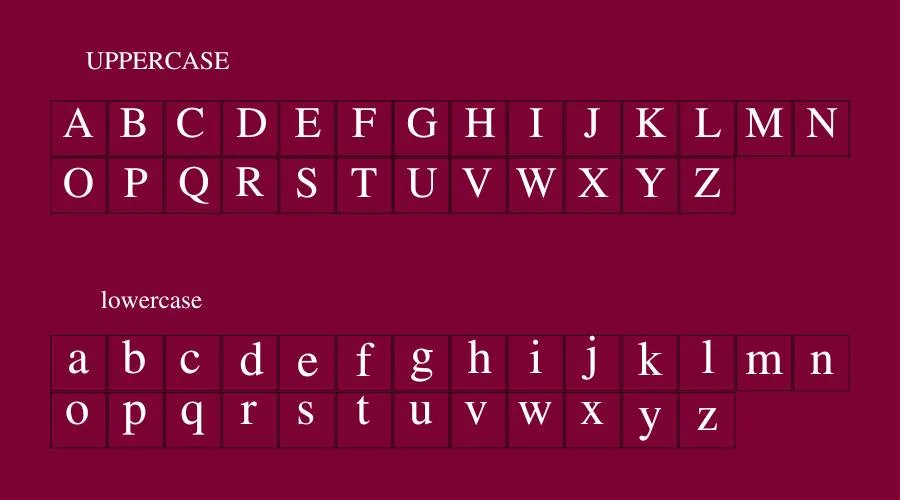
Times LT Std Roman Font
About Times LT Std Roman Font
Linotype created Times LT Std Roman Font is serif text style. Additionally, you may use its online generating tool to turn plain text into a contemporary design. You may obtain it in the OT and TT archive data types depending on your computer.
For viewers, the typeface has an appealing and tidy textural aspect. This typeface may therefore be utilized in a variety of layouts and tasks.
The typeface can suit your demands if you want anything classy and discreet or dramatic and eye-catching. Now that you have this font, you can start making stunning and original layouts. This font is also paired with the berlin sans fb font.